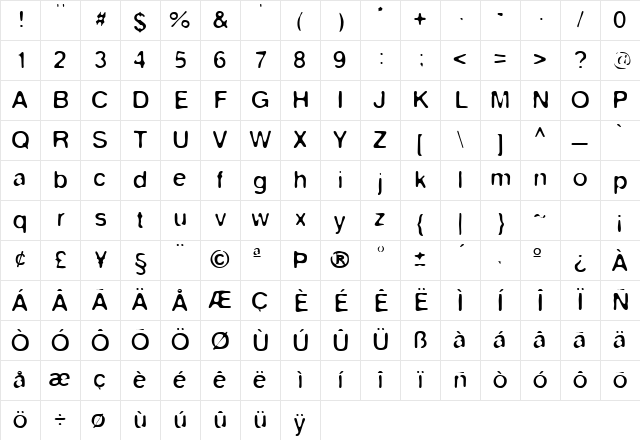
Keyes Regular Free Font
Keyes Regular
Design Context for Keyes
Keyes is a composed and adaptable typeface that performs quietly and consistently across a wide range of design contexts.